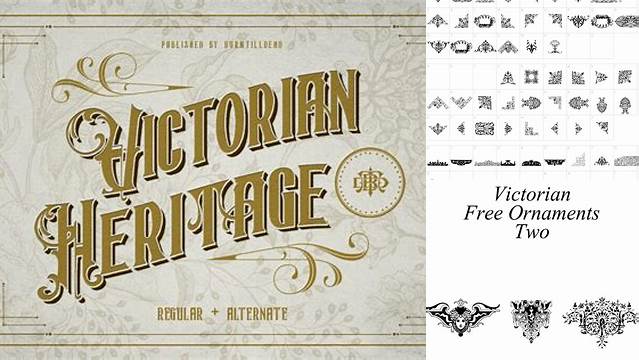
Victorian Free Ornaments Font: Elegant Designs
What is a Victorian Font?
Hey guys! Let's dive into the world of Victorian fonts. Victorian fonts aren't just any typefaces; they're a throwback to the 19th century, a period known for its ornate designs and elaborate decorations. Think intricate details, flourishes, and a touch of vintage charm. When you see a Victorian font, you're instantly transported to an era of elegance and sophistication. These fonts often feature bold strokes, serifs (those little feet at the end of letters), and a generally fancy appearance. They're not your everyday fonts; they're special, designed to make a statement and add a touch of class to whatever project you're working on. Whether it's invitations, posters, or branding, a Victorian font can really elevate your design and give it that timeless, regal feel. Using Victorian fonts correctly can bring a touch of historical authenticity and visual appeal, setting your work apart with a unique and distinguished style. Remember, it’s all about capturing that old-world charm while keeping it relevant for modern use.
Ornate Victorian Font Designs
When it comes to ornate Victorian font designs, the key is in the details. These fonts are all about the flourishes, the intricate lines, and the overall sense of grandeur. Think of the elaborate lettering you might see on vintage posters, old book covers, or even classic signage. Ornate Victorian fonts often feature swashes, which are extended strokes that add a decorative touch to the letters. You'll also find plenty of curls, loops, and other embellishments that make each character a work of art. One popular style is the "engraved" look, which mimics the appearance of letters that have been meticulously carved into metal or wood. This style often includes fine lines and subtle shading to create a sense of depth and texture. Another common characteristic is the use of high contrast between thick and thin strokes, which adds to the visual drama and makes the letters stand out. These fonts are perfect for projects where you want to make a strong statement and convey a sense of luxury and sophistication. Whether it's wedding invitations, product packaging, or branding materials, an ornate Victorian font can help you create a truly memorable and eye-catching design.
Using Victorian Fonts in Graphic Design
Using Victorian fonts in graphic design can add a touch of elegance and historical charm to your projects. Victorian fonts are particularly well-suited for designs that aim to evoke a sense of nostalgia or sophistication. When incorporating these fonts, consider the overall aesthetic you want to achieve. Victorian fonts often pair well with vintage-inspired graphics, muted color palettes, and antique textures. They can be used for a variety of purposes, such as creating logos, designing posters, or crafting elegant invitations. However, it's important to use them sparingly to avoid overwhelming the design. A good approach is to use a Victorian font for headings or titles and then pair it with a simpler, more modern font for body text. This creates a balanced and visually appealing contrast. Also, pay attention to the spacing and kerning of the letters. Victorian fonts often have intricate details that can get lost if the spacing is too tight. By carefully adjusting the spacing, you can ensure that the font remains legible and visually striking. Whether you're designing a wedding invitation or a vintage-inspired poster, a Victorian font can help you create a truly timeless and memorable design.
Victorian Calligraphy Fonts
Victorian calligraphy fonts are a beautiful blend of ornate design and flowing script, perfectly capturing the elegance of the era. These fonts often feature elaborate swirls, loops, and delicate strokes that mimic the look of hand-lettered calligraphy. Using Victorian calligraphy fonts can add a touch of sophistication and romance to your designs, making them ideal for invitations, greeting cards, and other special occasions. The key to using these fonts effectively is to ensure they remain legible, despite their intricate details. Choose a font that balances ornamentation with clarity, and be mindful of the size and spacing of the text. Victorian calligraphy fonts pair well with simple backgrounds and minimal graphics, allowing the font to take center stage. They can also be combined with more modern sans-serif fonts to create a striking contrast. When selecting a Victorian calligraphy font, consider the overall tone of your project. Some fonts are more formal and traditional, while others have a more whimsical or playful feel. By carefully choosing the right font, you can create a design that perfectly captures the spirit of the Victorian era. This is great, guys!
Best Victorian Fonts for Logos
Choosing the best Victorian fonts for logos requires careful consideration of your brand's identity and the message you want to convey. Victorian fonts can add a touch of elegance, sophistication, and historical charm to your logo, making it stand out from the competition. However, it's important to select a font that is both visually appealing and legible, even at smaller sizes. Look for fonts with clear, well-defined letterforms and avoid those with overly intricate details that can become muddled. Serif fonts are often a good choice for logos, as they tend to convey a sense of tradition and authority. However, you can also experiment with more modern or stylized Victorian fonts to create a unique and memorable logo. When incorporating a Victorian font into your logo, consider the overall design and how it interacts with other elements, such as images and colors. A well-designed logo should be balanced and harmonious, with the font playing a key role in conveying your brand's personality. Also, make sure the font is scalable and looks good on a variety of different media, from business cards to websites. Remember, your logo is often the first impression people have of your brand, so it's important to get it right. Using a Victorian font can help you create a logo that is both timeless and distinctive.
Victorian Fonts for Wedding Invitations
Victorian fonts are an excellent choice for wedding invitations, adding a touch of romance, elegance, and timeless beauty to your special day. These fonts evoke a sense of tradition and sophistication, perfectly complementing the formal and celebratory nature of a wedding. When selecting a Victorian font for your invitations, consider the overall style of your wedding. If you're planning a classic or vintage-themed wedding, a more traditional Victorian font with ornate details and elegant serifs would be a great fit. For a more modern or rustic wedding, you might opt for a Victorian font with a slightly cleaner and simpler design. Calligraphy-style fonts are also a popular choice for wedding invitations, adding a personal and handwritten touch. When designing your invitations, be sure to use the Victorian font sparingly, focusing on key elements such as the names of the bride and groom, the date, and the location. Pair the Victorian font with a simpler, more legible font for the body text to ensure that all the important information is easy to read. Also, pay attention to the spacing and kerning of the letters, as Victorian fonts often have intricate details that can get lost if the spacing is too tight. By carefully selecting and using a Victorian font, you can create wedding invitations that are both beautiful and memorable.
Free Victorian Fonts for Commercial Use
Finding free Victorian fonts for commercial use can be a game-changer for designers and businesses on a budget. However, it's crucial to ensure that the fonts you're using are indeed licensed for commercial purposes to avoid any legal issues. Many websites offer free fonts, but not all of them allow commercial use. Before downloading a font, carefully review the license agreement to understand the terms of use. Some fonts may be free for personal use but require a commercial license if you plan to use them in your business projects. Others may be completely free for any purpose, including commercial use. Websites like Creative Fabrica and Font Bundles often have sections with free fonts that include commercial licenses, but it's always a good idea to double-check the specific terms. When using free Victorian fonts for commercial use, be sure to give credit to the font designer if required by the license. This is a simple way to show your appreciation and support the font community. Also, consider keeping a record of the fonts you've downloaded and their corresponding licenses for your own reference. By being diligent and responsible, you can enjoy the beauty and elegance of Victorian fonts in your commercial projects without any worries.
Victorian Fonts with Decorative Elements
Victorian fonts with decorative elements are all about adding extra flair and visual interest to your designs. These fonts often feature elaborate swirls, flourishes, and other embellishments that make each character a work of art. Decorative elements can include things like vines, leaves, flowers, and other ornamental details that are incorporated into the letterforms. Using Victorian fonts with decorative elements can add a touch of whimsy, romance, or sophistication to your projects, depending on the specific font and the way it's used. These fonts are particularly well-suited for designs that aim to evoke a sense of nostalgia or fantasy. When incorporating Victorian fonts with decorative elements, it's important to use them sparingly to avoid overwhelming the design. A good approach is to use the decorative font for headings or titles and then pair it with a simpler, more legible font for the body text. This creates a balanced and visually appealing contrast. Also, pay attention to the spacing and kerning of the letters, as the decorative elements can sometimes make the font appear crowded or difficult to read. By carefully adjusting the spacing, you can ensure that the font remains legible and visually striking. Whether you're designing a fairy tale-themed poster or a vintage-inspired greeting card, a Victorian font with decorative elements can help you create a truly magical and memorable design.
Victorian Display Fonts
Victorian display fonts are designed to grab attention and make a statement. These fonts are typically used for headings, titles, and other prominent elements in a design, where their unique and eye-catching characteristics can really shine. Victorian display fonts often feature bold strokes, elaborate serifs, and intricate details that set them apart from more traditional fonts. They're perfect for projects where you want to convey a sense of elegance, sophistication, or historical charm. When selecting a Victorian display font, consider the overall tone and style of your design. Some fonts are more formal and traditional, while others have a more whimsical or playful feel. Choose a font that complements the other elements in your design and helps to reinforce your message. Also, be sure to use the font sparingly, as too much of a good thing can be overwhelming. A good approach is to use the Victorian display font for a single heading or title and then pair it with a simpler, more legible font for the body text. This creates a balanced and visually appealing contrast. Remember, the goal of a Victorian display font is to draw the viewer's eye and make a lasting impression.
Where to Learn More About Victorian Fonts
If you're interested in learning more about Victorian fonts, there are several resources available to you. One great place to start is by researching the history of typography and the Victorian era. This will give you a better understanding of the context in which Victorian fonts were created and the social and cultural influences that shaped their design. You can also find a wealth of information online, including articles, tutorials, and forums dedicated to Victorian fonts and typography. Websites like Fonts.com and MyFonts.com offer extensive collections of Victorian fonts, along with detailed information about their designers and characteristics. You can also find inspiration and examples of Victorian fonts in use by browsing design blogs and online portfolios. Another great way to learn more about Victorian fonts is to attend workshops or conferences on typography and design. These events offer opportunities to learn from experts in the field and network with other designers who share your passion for Victorian fonts. By taking advantage of these resources, you can deepen your knowledge of Victorian fonts and enhance your skills as a designer. Cool!